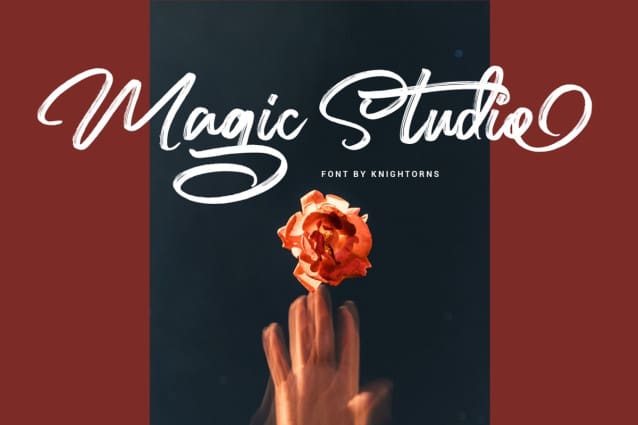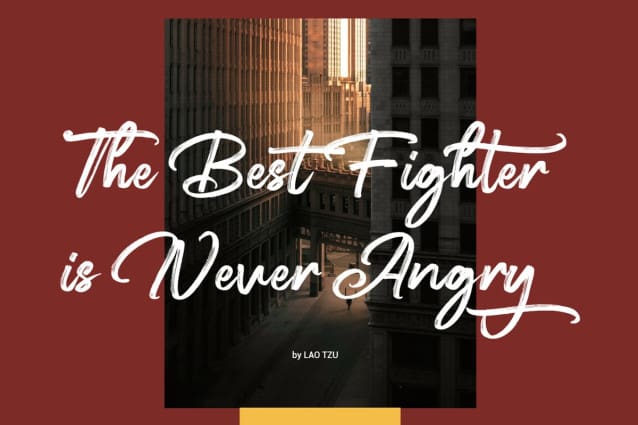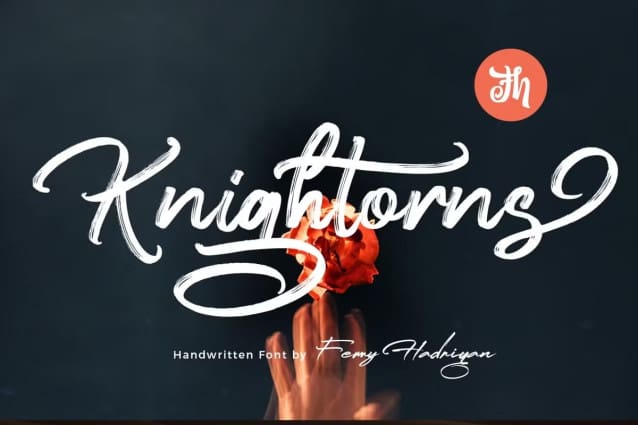
Knightorns Brush Font
Knightorns Brush Font is script font with handlettering brush style, with opentype feature include of the font. Suitable for design, element design, wedding, event, t-shirt, logo, badges, sticker, and awesome work, etc..